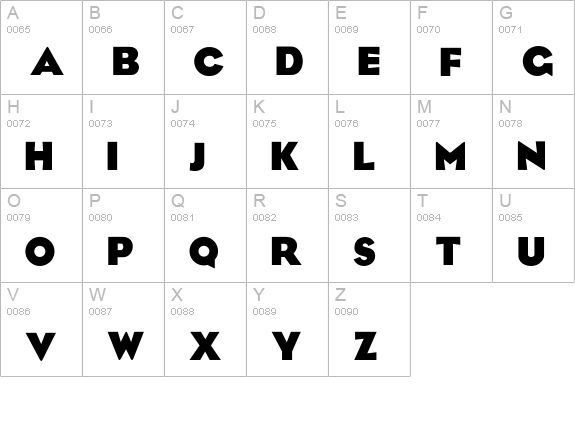
NovaBold Font Details
Introducing NovaBold, a sleek and modern font designed to make a bold statement in any project. With its clean lines and sharp edges, NovaBold exudes confidence and sophistication. Whether you're designing a logo, poster, or website, this versatile font will grab attention and leave a lasting impression. But the best part? NovaBold is completely free to download at FontsMarket.com! That's right, you can enhance your creative projects with this stunning font without spending a dime. So why wait? Elevate your designs with NovaBold today and watch them come to life with style and flair.